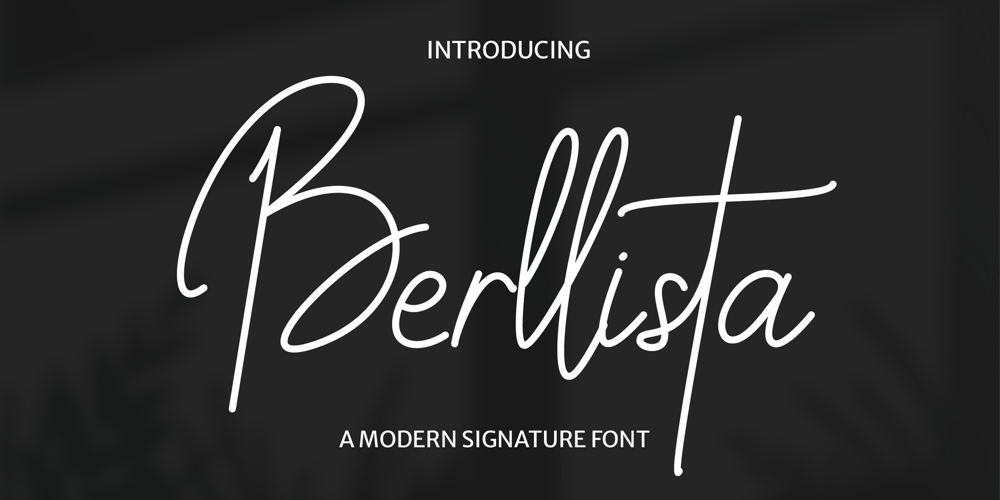
Berllista Font Family was designed by Heri Imanudin and published by Krafted. Berllista contains 1 styles and family package options. Looking for a fresh signature font that will transform your logos, letterheads, and social media posts?Introducing Berllista – A Modern Signature Font.Online or offline, Berllista makes sure all eyes are on you. Give it a try and feel the impact a great font makes.What you’ll get: Multilingual & Ligature Support Full sets of Punctuation and Numerals Compatible with: Adobe Suite Microsoft Office Keynote Pages Software Requirements: The fonts that you’ll receive in the pack are widely supported by most software. In order to get the full functionality of the selection of standard ligatures (custom-created letters) in the script font, any software that can read OpenType fonts will work. We hope you enjoy this font and that it makes your branding sparkle! Feel free to reach out to us if you’d like more information or if you have any concerns.